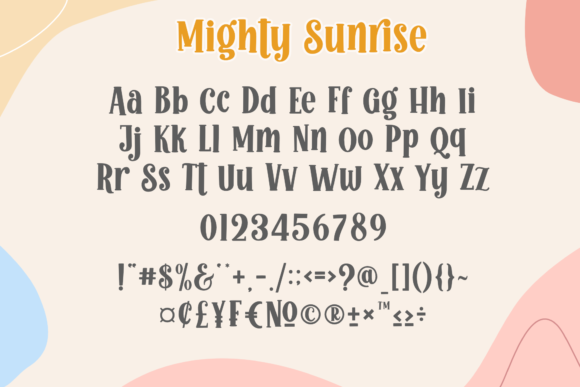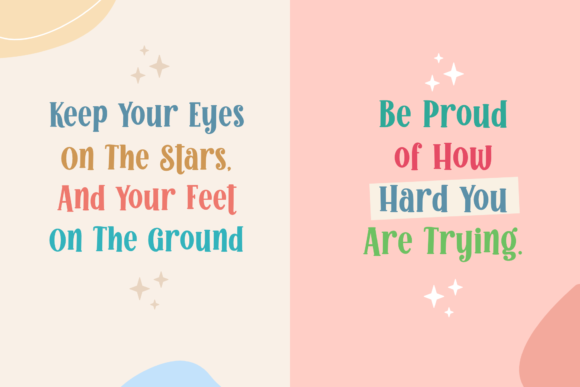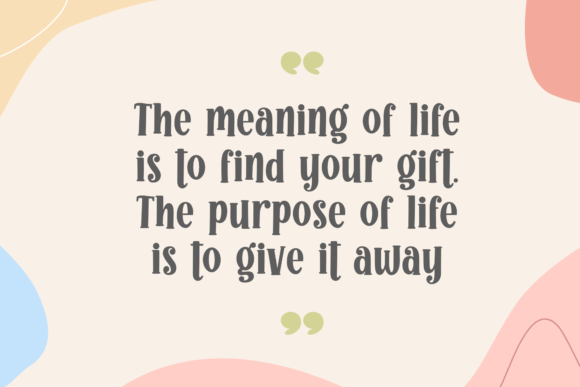
Introduction to Mighty Sunrise Font
Have you ever been working on a creative project, pouring your heart and soul into it, and just can’t seem to find the perfect finishing touch? I know I have! It’s those moments when we need a little something extra to make our designs truly shine. For me, that something extra is often a beautiful display font that adds a dash of personality to my work.
Enter the Mighty Sunrise Font, a stunning display font that’s sure to bring a smile to your face and a touch of joy to your designs. With its playful, whimsical feel, this font is perfect for adding a creative flourish to your projects. Whether you’re a seasoned designer or just starting out, the Mighty Sunrise Font is an invaluable resource that’s sure to elevate your work to the next level.
As a design resource, the Mighty Sunrise Font offers a high-quality, free download that’s perfect for use on a transparent background. Its versatility makes it a valuable addition to any designer’s toolkit, and its bright, cheerful vibe is sure to make your projects stand out in a crowded marketplace.
Key Features of Mighty Sunrise Font
- High-quality design resource with a unique, modern aesthetic, perfect for creative projects.
- Designed with a bold, energetic feel, ideal for headings, titles, and other prominent text elements in your creative project.
- Includes a range of characters, including uppercase and lowercase letters, numbers, and punctuation, for comprehensive use in your design.
- Perfect for designers, artists, and creatives looking for a high-quality, free design resource to elevate their work.
Honest Review: Mighty Sunrise Font
- Flexibility – The font is incredibly versatile, suitable for a wide range of creative projects, from branding to packaging design.
- Limited language support – While the font is well-suited for English, it may not be as effective for languages with non-Latin scripts.
Mighty Sunrise Font
Tips for Getting the Most Out of the Mighty Sunrise Font
For the best results, use the Mighty Sunrise Font on a transparent background to really make it stand out. You can also experiment with different font sizes and styles to create a unique look.
The Mighty Sunrise Font is perfect for a variety of projects, including:
- Printable art and wall decor